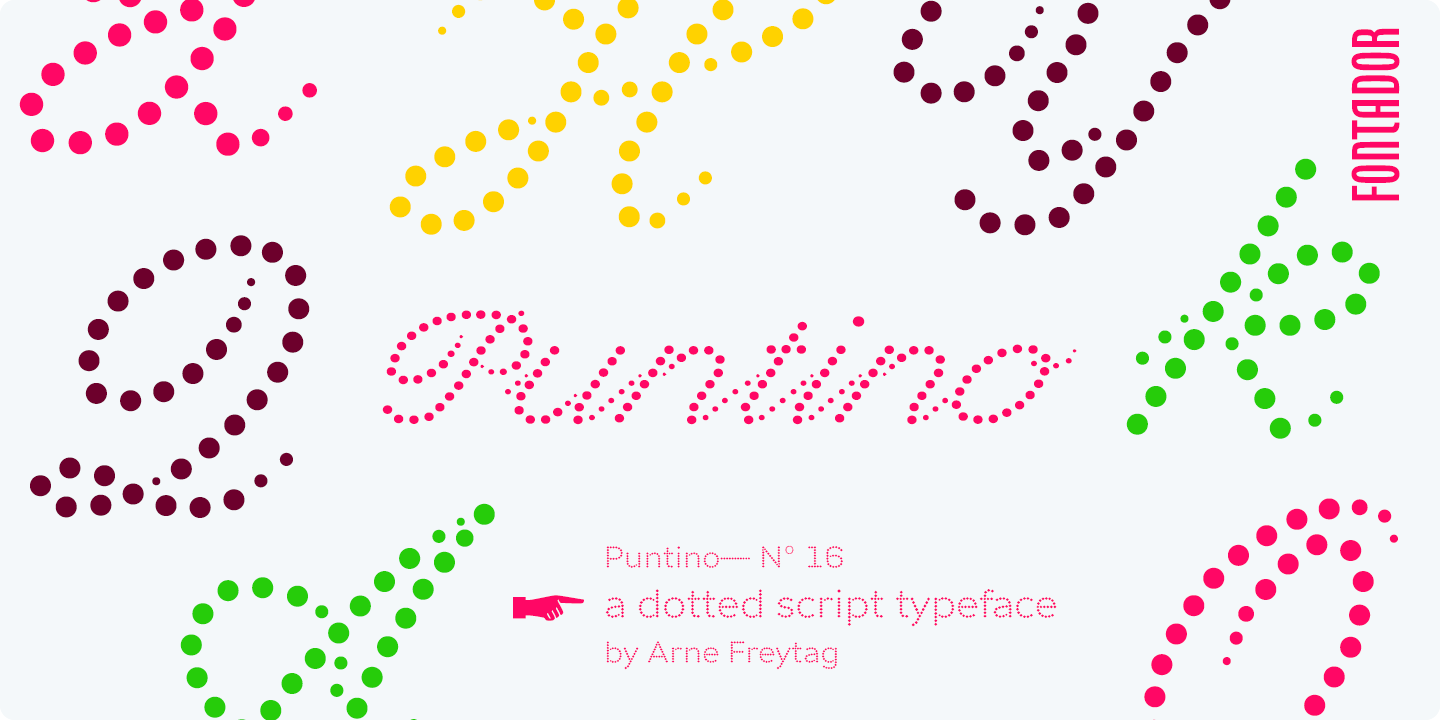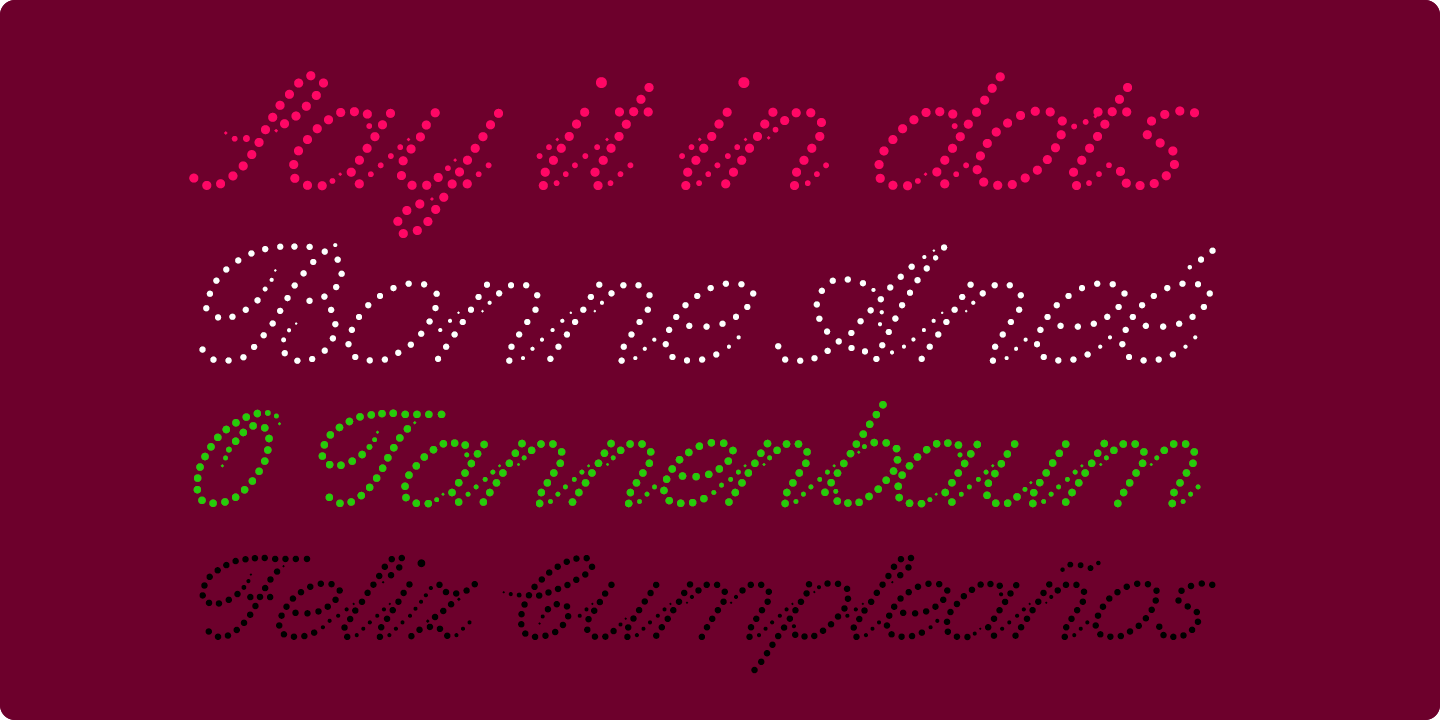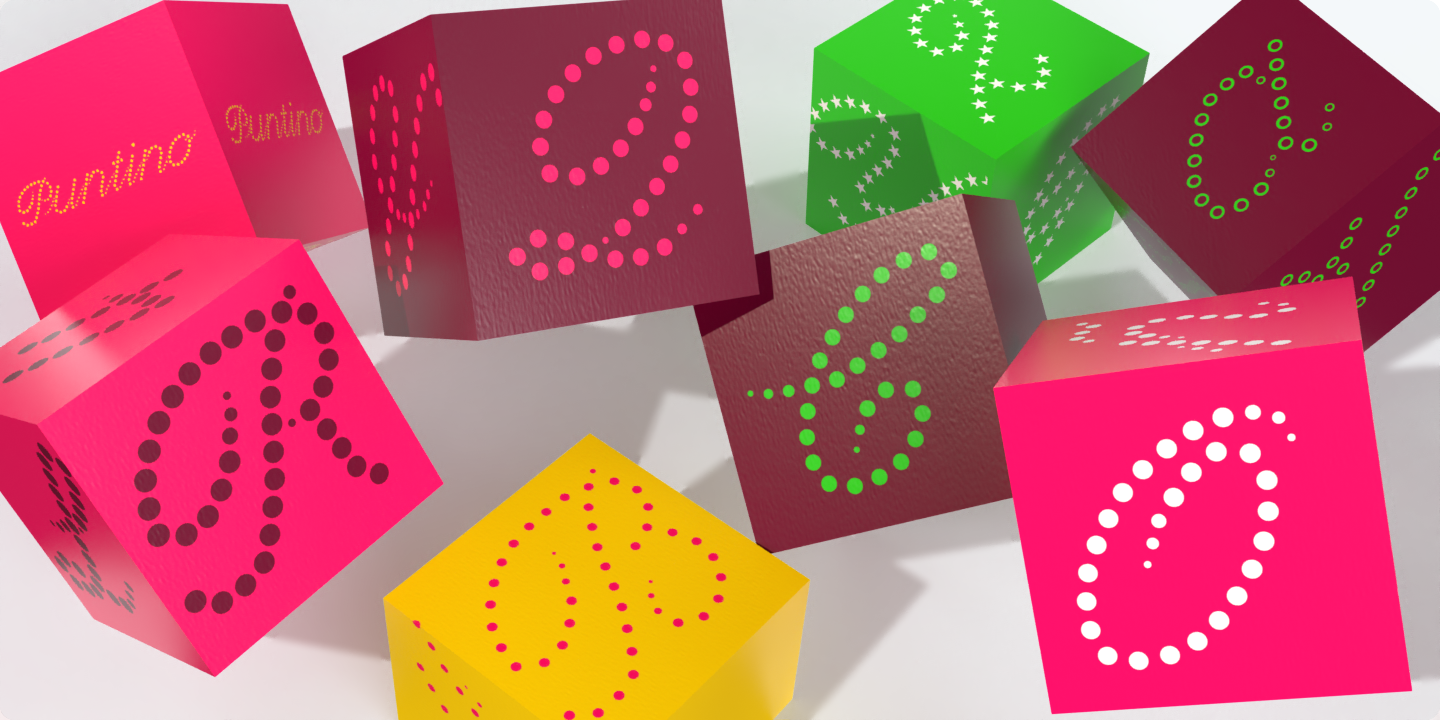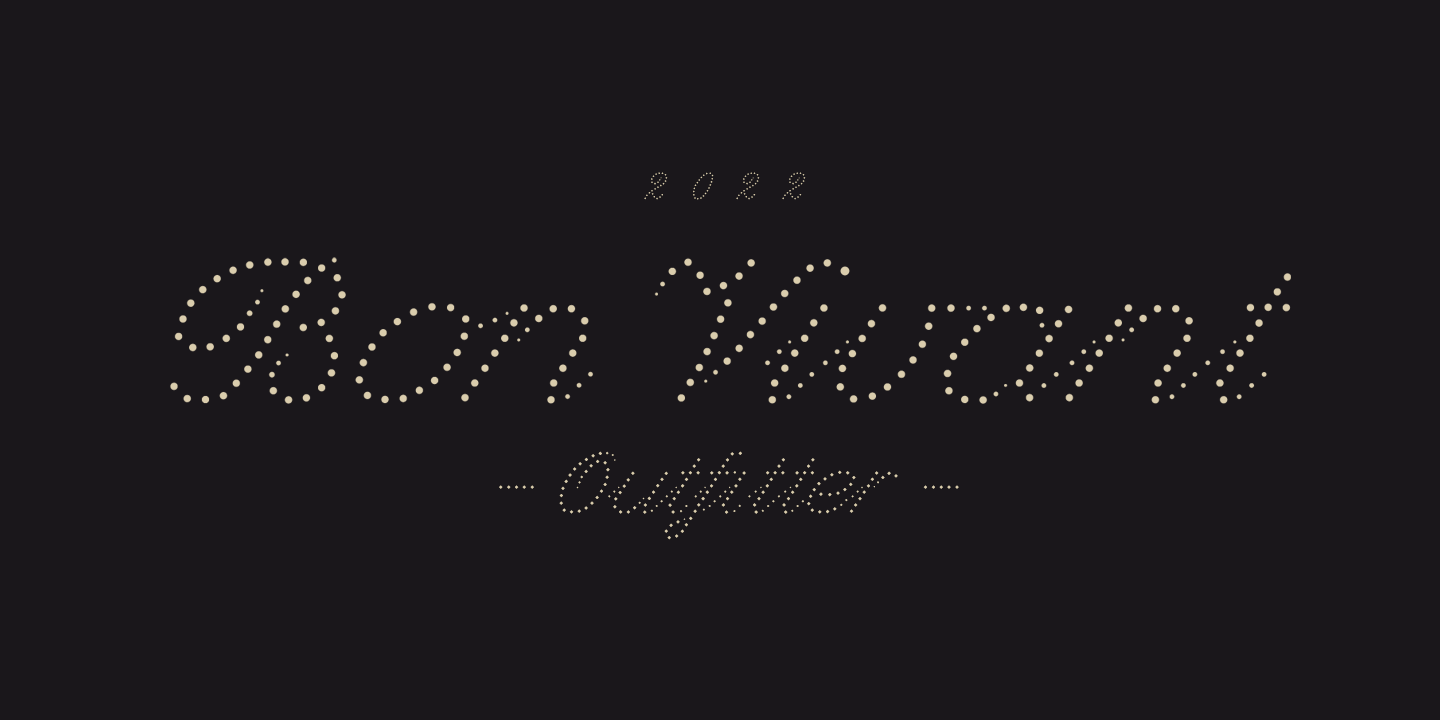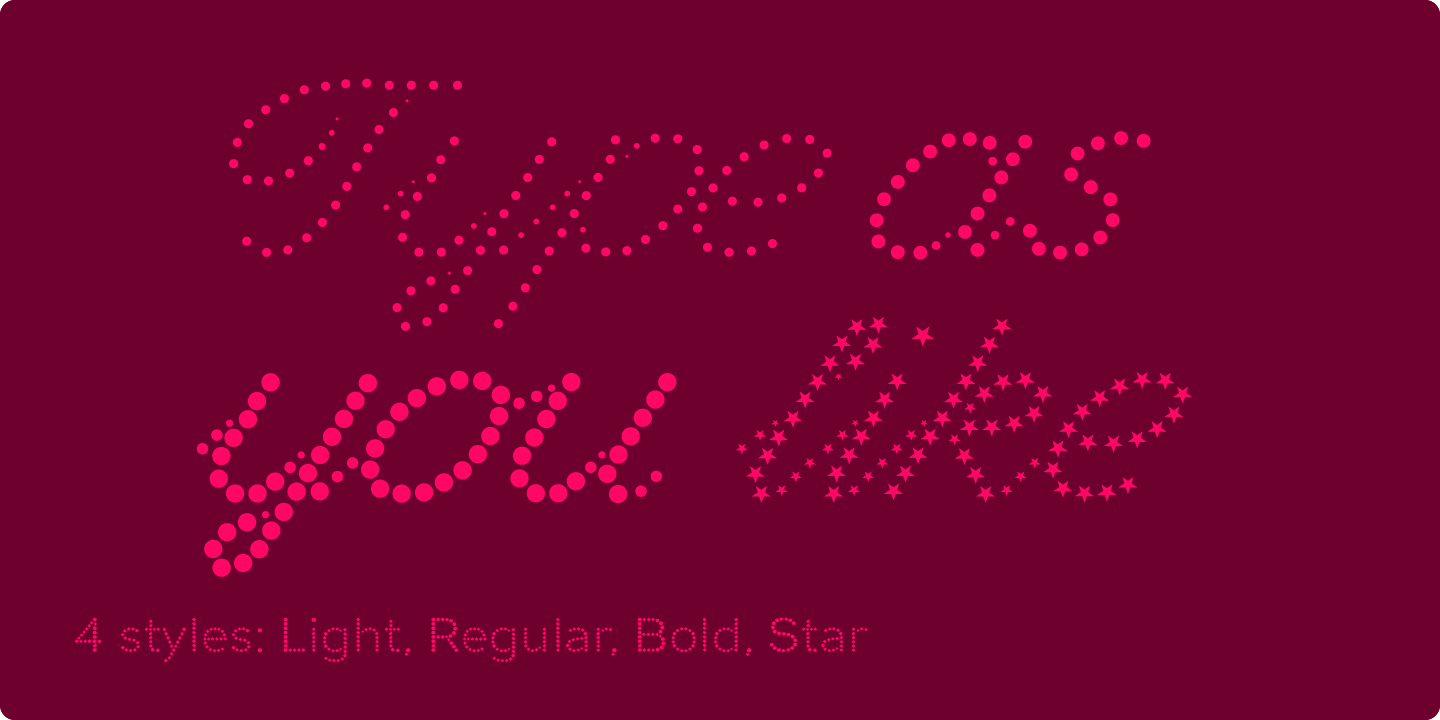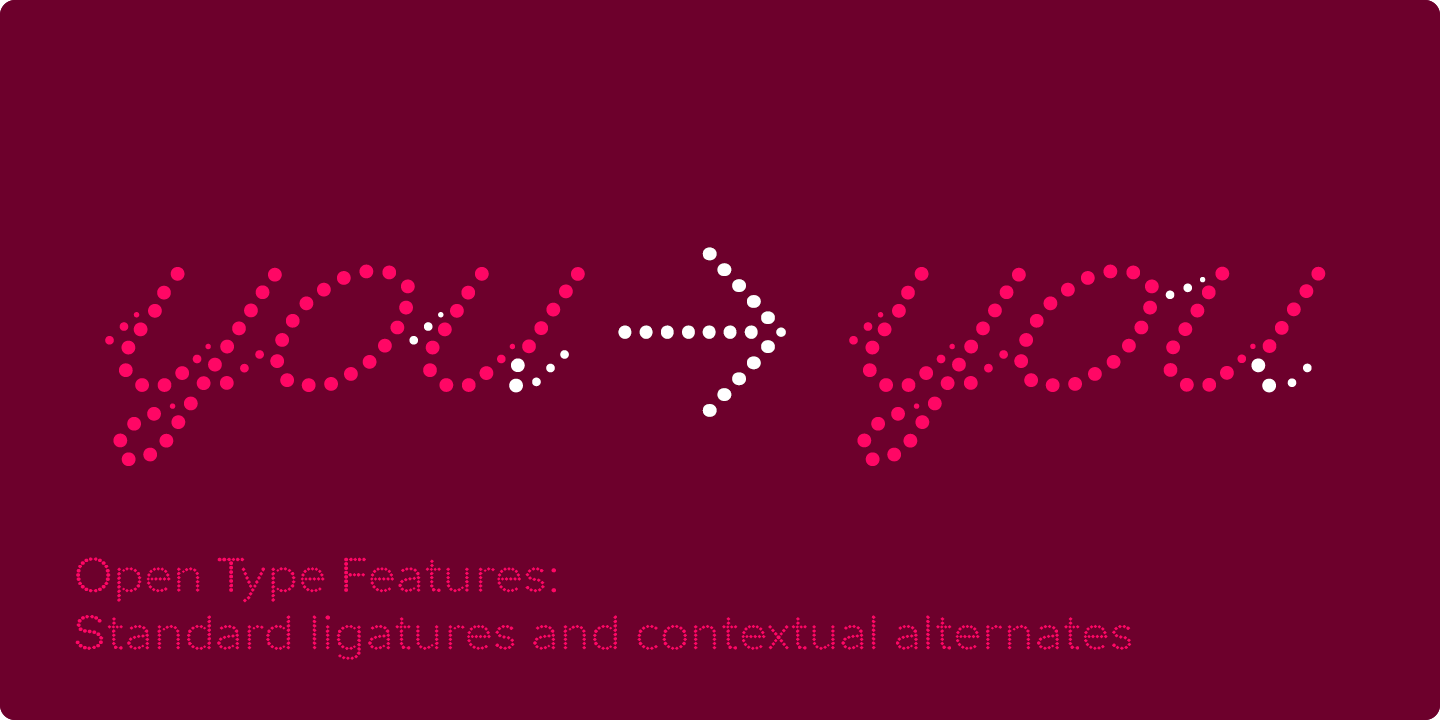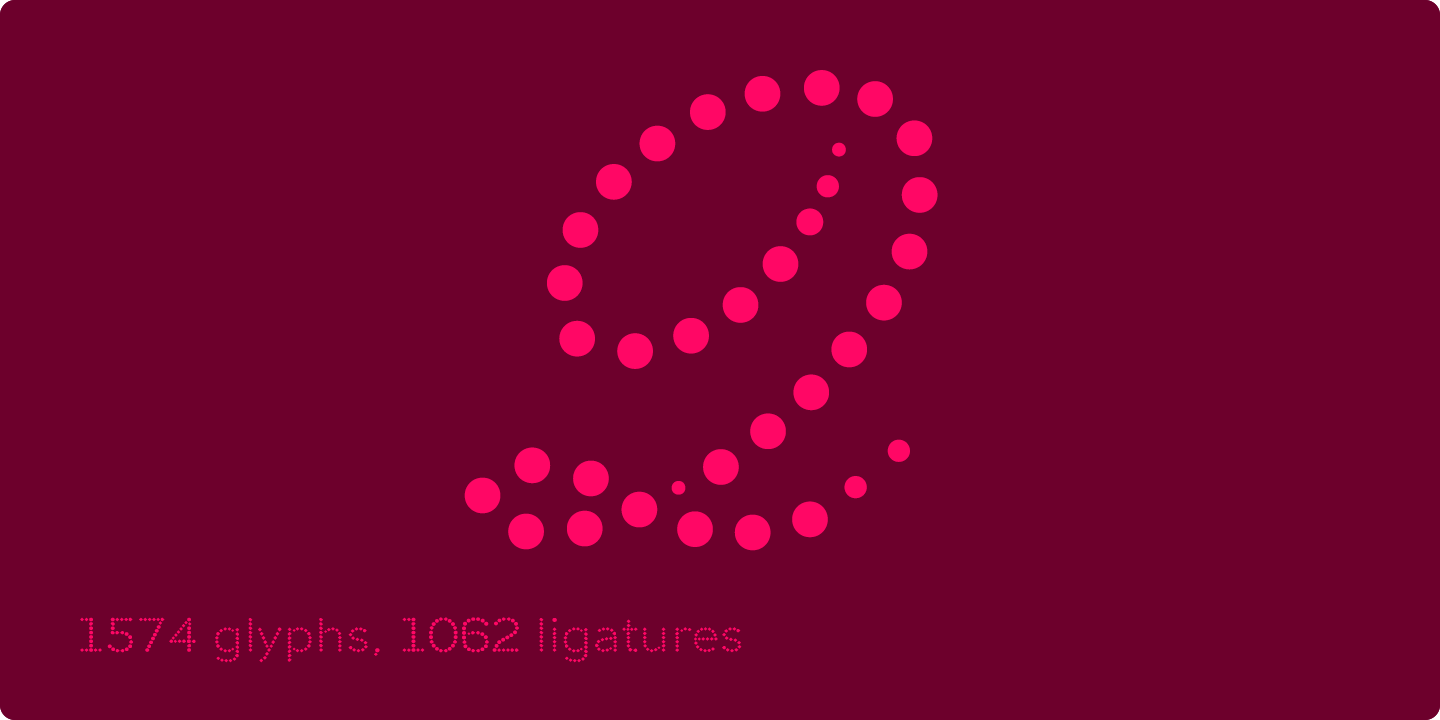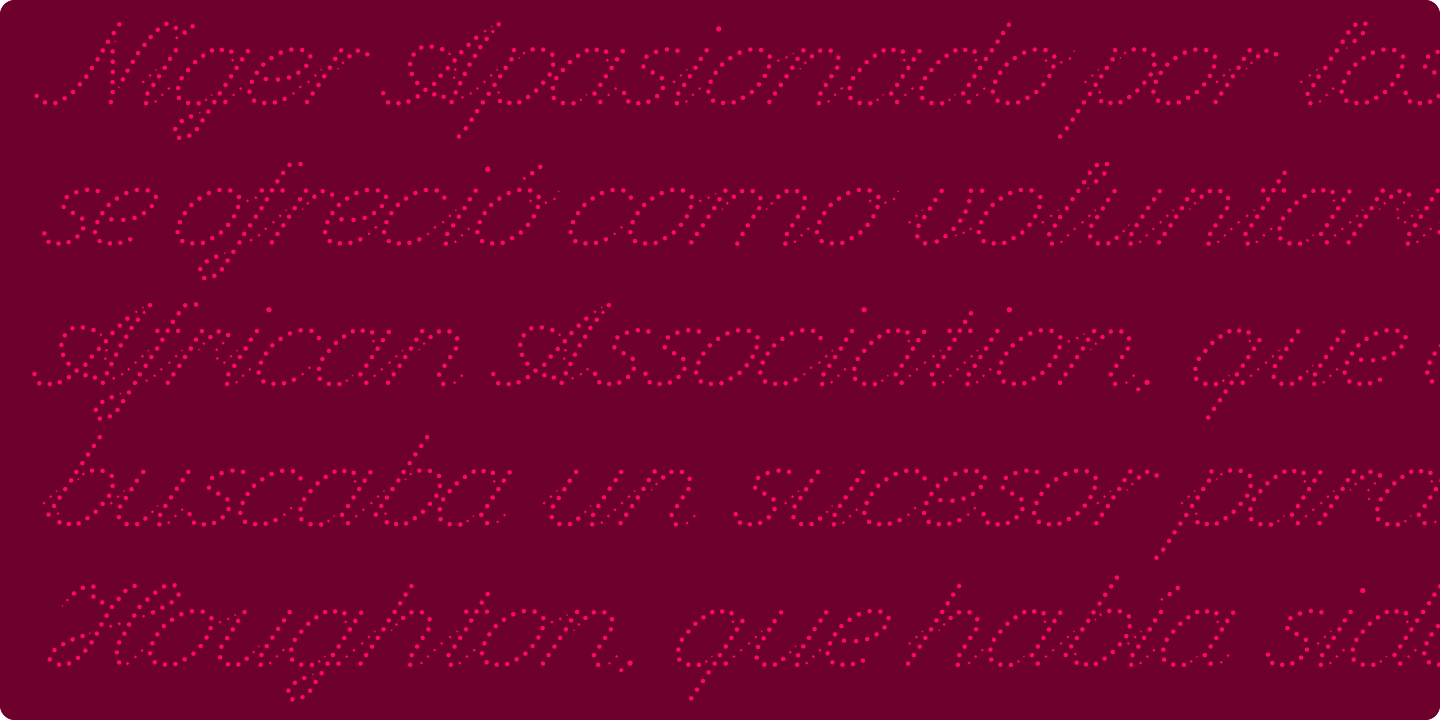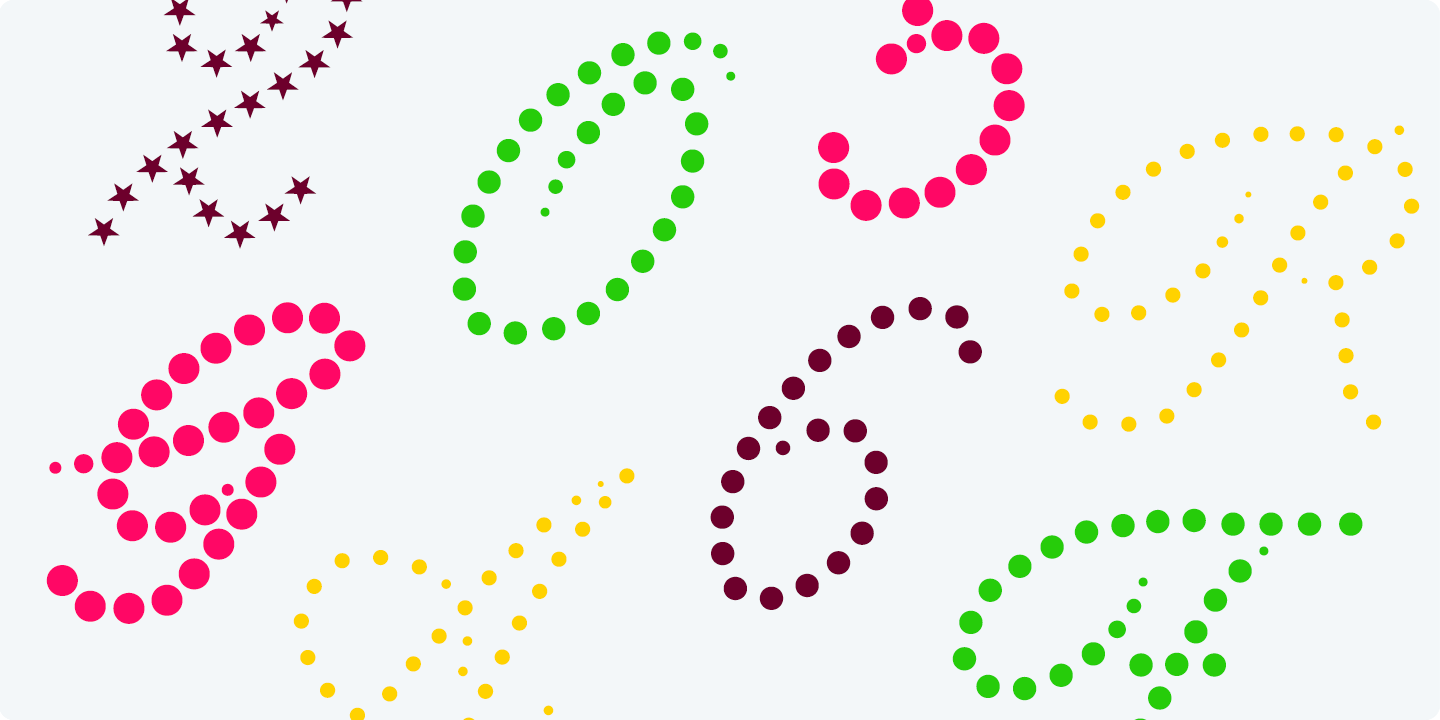
Puntino (4 fonts)
From Fontador
The dots also vary gradually in size to reflect the thickening and thinning of strokes, giving the letterforms a sophisticated overall look.
Puntino comes up with 4 styles and is perfectly suited for logos, brands, congratulation cards … The language support includes Western, Central and Eastern European character sets, as well as Baltic and Turkish languages.
OPEN TYPE FEATURES: Standard ligatures and contextual alternates should be activated.